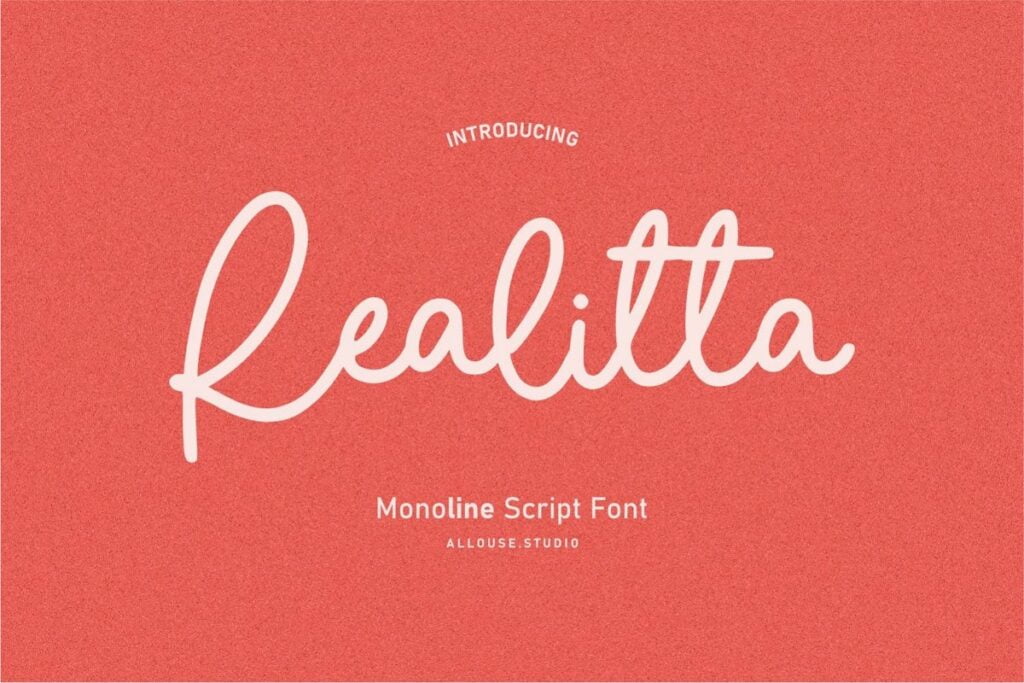
Realitta Font
Introducing the new Ralitta Font is a elegant monoline script font. Ralitta is perfect for product packaging, branding project, magazine, social media, wedding, or just used to express words above the background.
Realitta Monoline Script Font